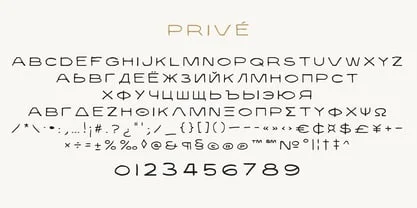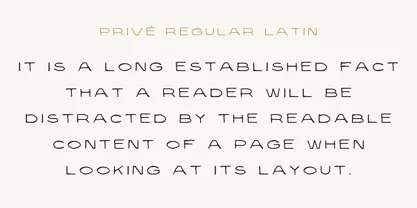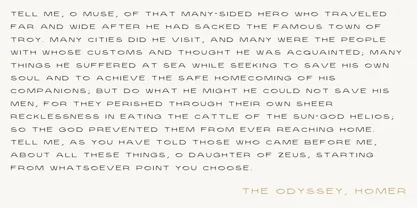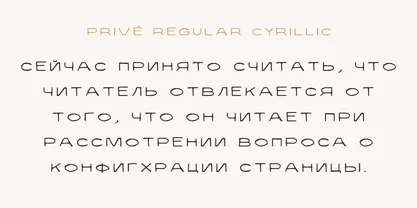
Privé Font
Few typefaces manage to balance distinctive character without sacrificing readability with genuine day-to-day practicality. Privé is one of them. The typeface brings a versatile sensibility to a broad range of creative disciplines, with a confident voice that adapts to diverse briefs that holds up whether the work is print-first or screen-first.
In practice, Privé proves particularly effective for social media graphics, poster creation, editorial layouts, logo design, environmental graphics. Designers reaching for it find that the type decisions feel resolved rather than laboured — a useful quality when client timelines are tight.
The range of applications extends to web design, advertising campaigns, product labels, signage systems. That breadth is deliberate: the proportions and spacing were stress-tested across a wide range of mock briefs before the typeface was finalised.
UX designers establishing typographic systems for digital products find Privé a reliable choice for projects that demand both personality and restraint. The design avoids the self-conscious quirkiness that dates quickly, settling instead for considered distinctiveness that holds up over time.